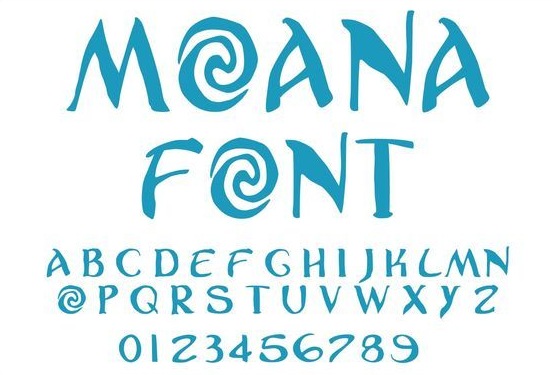
Moana Font is a notable example of pop culture typography, capturing creativity and imagination from multiple perspectives. The carved typeset became well known after the premiere of the Disney animation Moana in 2016. The fonts were uniquely sculpted to represent the rich Polynesian culture, making the movies stunningly adventurous. In this article, we’ll explore the history of the Moana font, its features, applications, and where to find its alternatives.
Overview of the Moana Font
The Moana font refers to the stylized typeface that is used on the logo and Disney’s Moana promotional materials. It is well known for its striking and bold yet rugged look, which captures the Polynesian culture and ocean elements featured in the film. This font is also a top favorite amongst designers and content creators, and fans wanting to add a touch of adventure to their projects.
History and Origins of the Moana Font
The film branding was done in a sophisticated way in order to integrate meticulous Polynesian craftsmanship and outline the characters in the font as glyphs with flowing shapes and hand-made designs.
The Moana font made by JoannaVu is one of the most recognized fan-made fonts that draws from the Moana logo while still maintaining the features of the original font. There have also been other designers that have created fonts that have a Moana type of font style enabling fans and creative users use it for non personal work.
Features of the Moana Font
The Moana font is characterized by several unique elements that make it stand out:
- Hand-drawn appearance: The letters resemble traditional Polynesian carvings, giving them an authentic feel.
- Curved strokes and swirls: Many letters have subtle swirls, mimicking ocean waves, which tie into the movie’s theme.
- Bold and rustic style: The uneven, organic edges make the font look handcrafted rather than machine-generated.
- Tribal aesthetics: The font incorporates Polynesian patterns, adding depth and cultural significance.
- Versatile application: Despite its themed nature, the font is versatile enough to be used in multiple design contexts.
Applications of the Moana Font
The Moana font is widely used across various creative projects.
- Graphic Design and Branding
Designers usually use Moana-inspired fonts to create visually engaging graphics, particularly for tropical, adventure, or cultural designs.
- Party Invitations and Decorations
Thanks to the success of the Moana film, Moana-themed birthday parties, party invitations, and decorations often have the Moana font.
- T-Shirts and Merchandise
Fans of the movie love incorporating Moana-inspired fonts into custom merchandise such as t-shirts, mugs, and posters.
- Website and Social Media Graphics
Different bloggers and content creators use this font to give their graphics a warm, tropical ambiance, especially for travel and adventure-themed graphics.
- DIY Crafts and Scrapbooking
Creative lovers apply Moana-type fonts to scrapbooking, homemade greeting cards, and other DIY projects.
Alternatives to the Moana Font
If you’re looking for similar fonts that capture the essence of Moana’s typography, consider these alternatives:
- Island Style Fonts
- Tiki Tropic Font.
- Pacifico
- Māori Engraving Font
Final Thoughts
Moana font is not just a style of typeface, but it’s a cultural pride, adventure, and storytelling. The design of the font is incredibly handmade and strong, with Polynesian elements incorporated, making it an excellent choice for many creative pieces. The original font is not available for public use; however, inspired versions that capture its spirit live on.